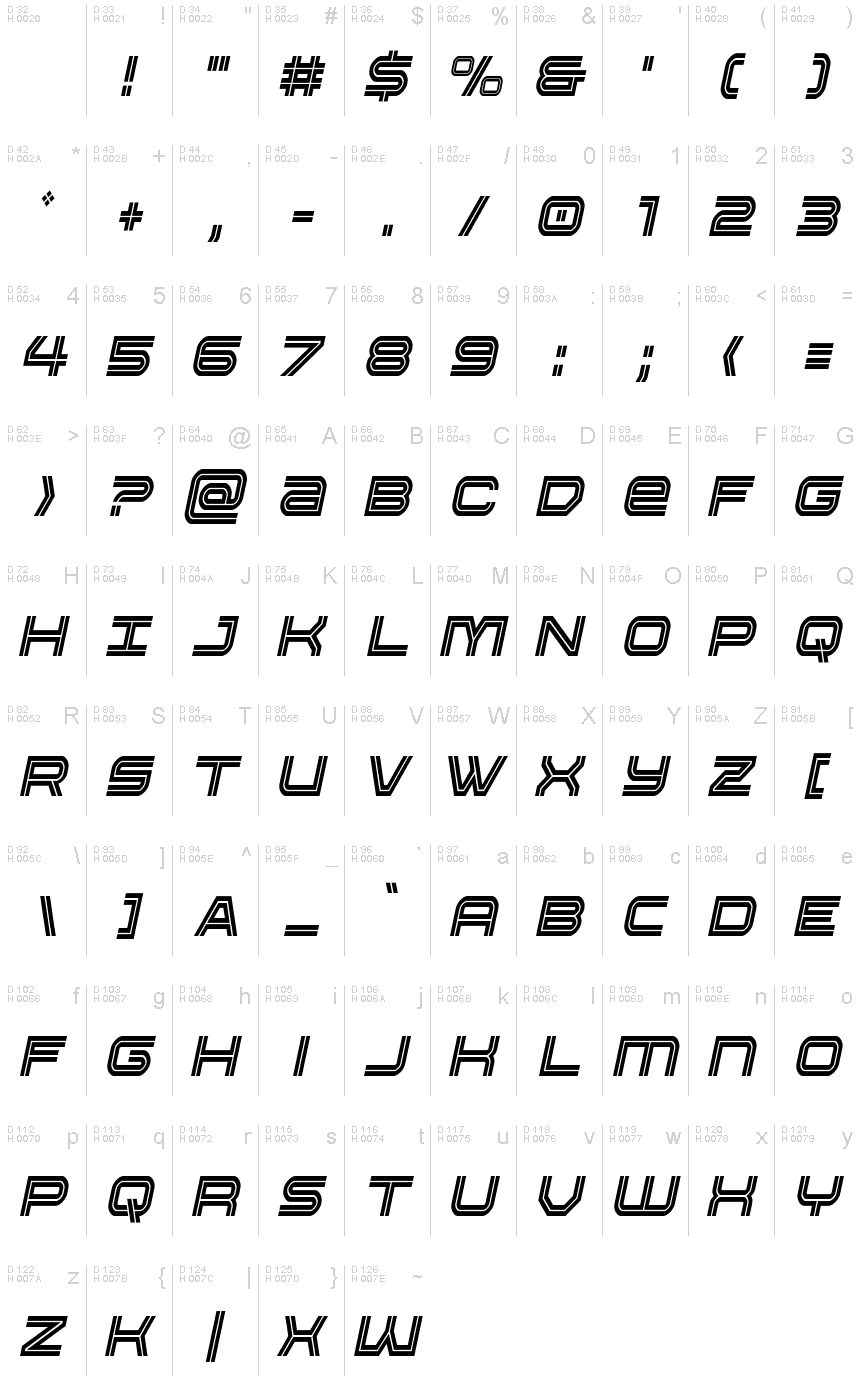
Gran Torino Condensed Italic
Introducing Gran Torino Condensed Italic, a wide and techno display font designed by Daniel Zadorozny. Its sharp curves and distinct look make it perfect for any project that needs an edgy touch, from posters to logos.